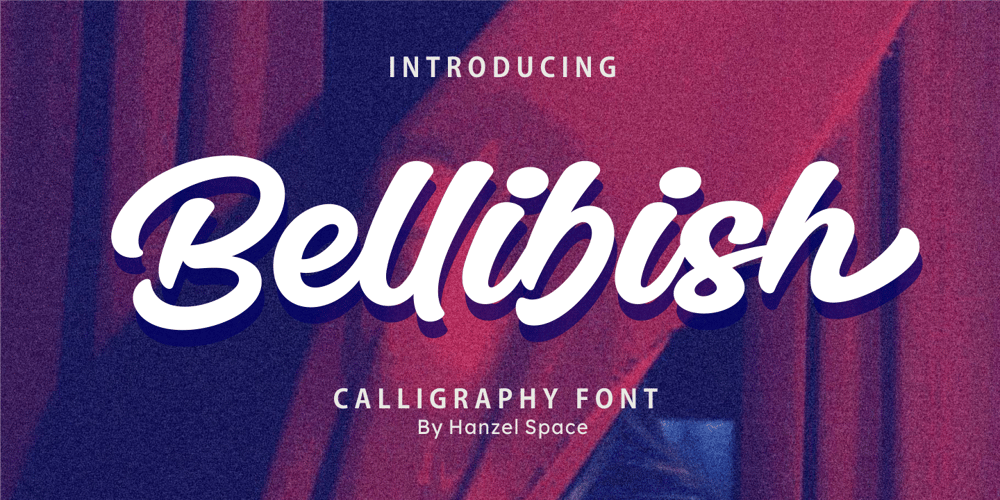
Bellibish
Bellibish font
Bellibish Font Family was designed by Hanief Farandi and published by Hanzel Space. Bellibish contains 1 styles and family package options. Bellibish | Calligraphy Font.This font was created to help you designing logotype or lettering style logo for your Brand or your clients, and you also can use it for designing all of the graphic stuff such as badge, sign, packaging, headline, title, T-shirt/apparel,bPoster, etc.Bellibish was designed for personal characters such as strong, confidence, dynamic, readable, Energic, dynamic, etc.Features: Multilanguage Punctuation Ligatures Ending Swash Thanks so much for checking out my shop!Cheers!Happy Creating! Hanzel Space Studio